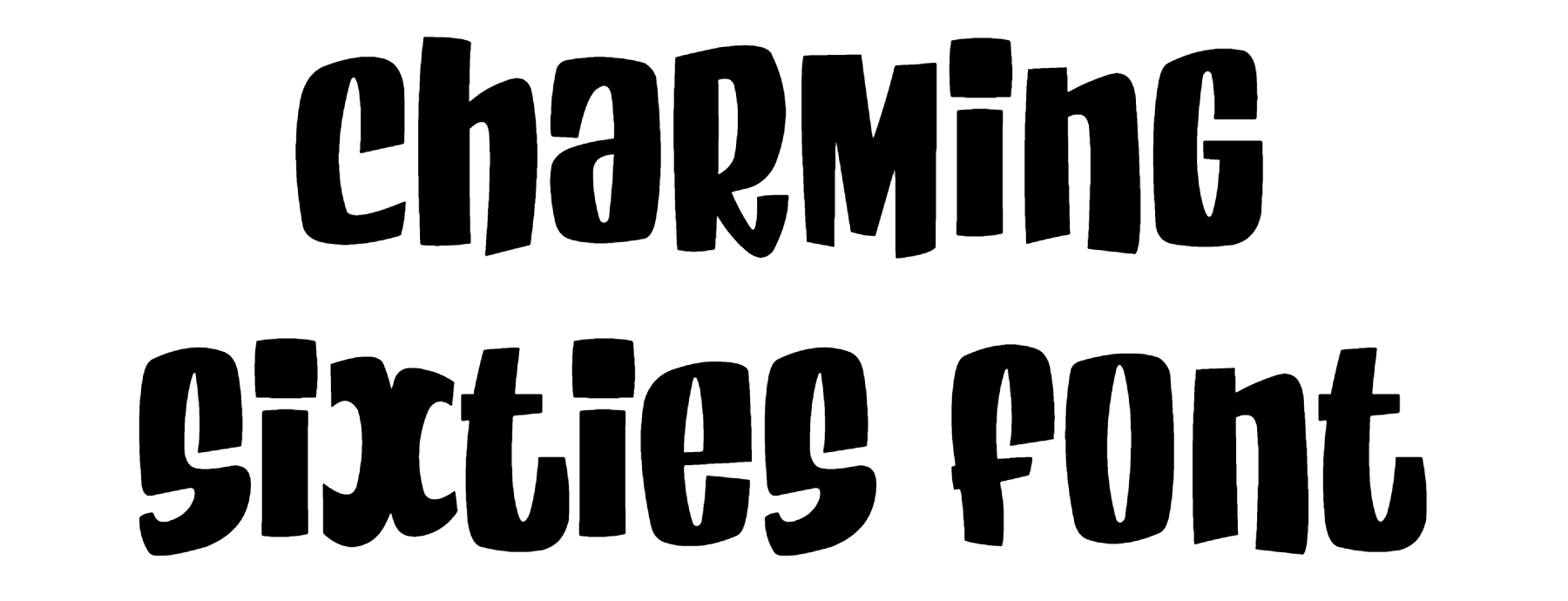
Charming Sixties is a retro, vintage-inspired display font created by the digital type designer Imagex. Released in 2021, the typeface captures the nostalgic, playful energy of mid-century advertising, pop art, and psychedelic poster layouts from the 1960s.
Charming Sixties
Charming Sixties is a groovy font made by IMAGEX (2021).
- Designer: IMAGEX
- Category: Groovy font